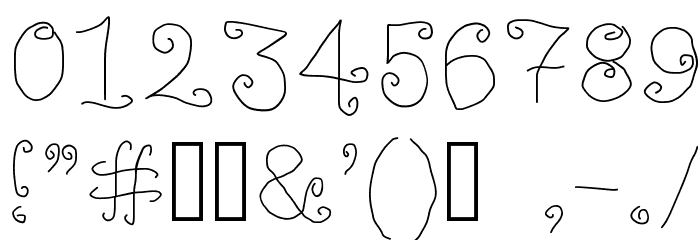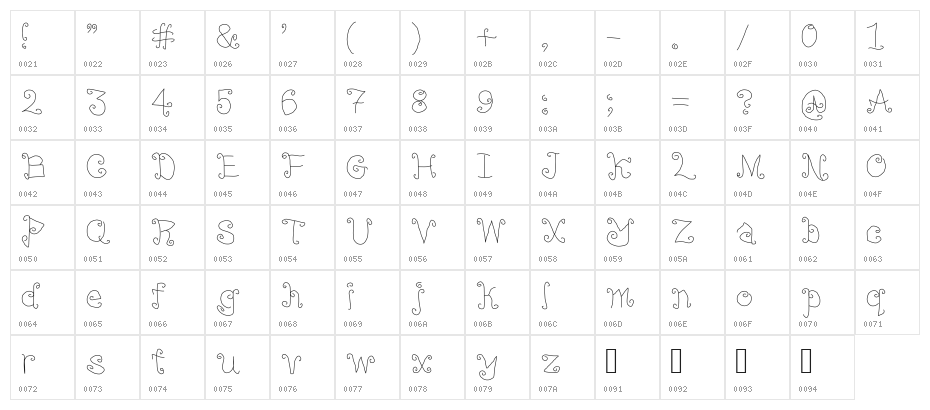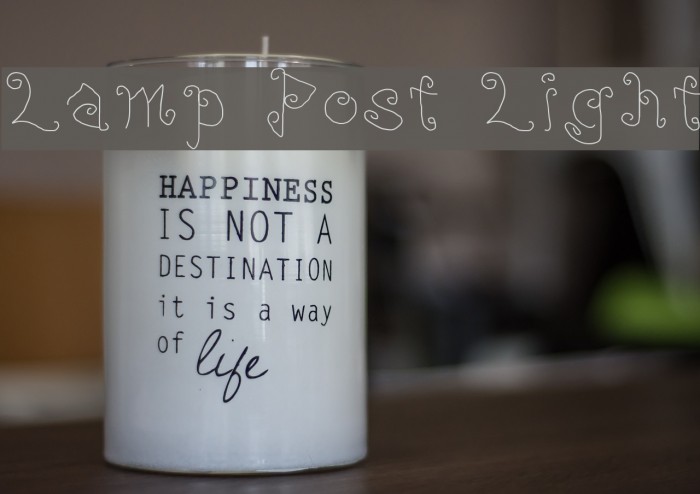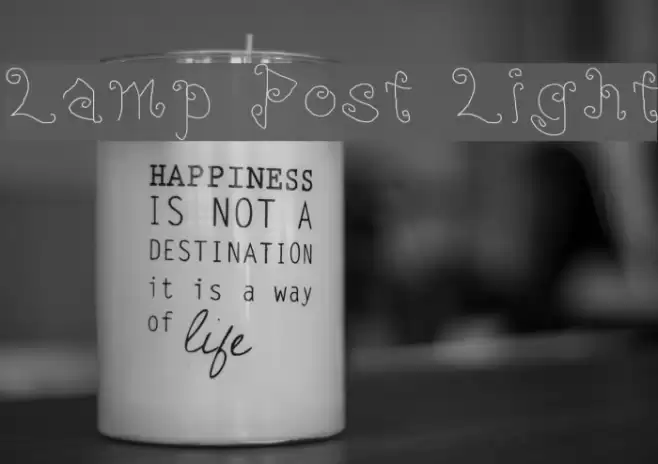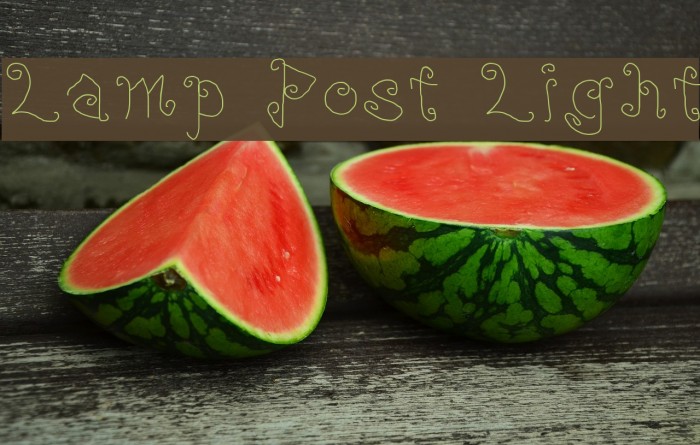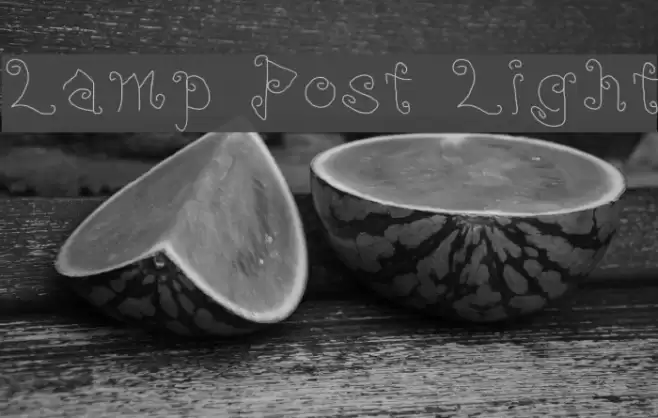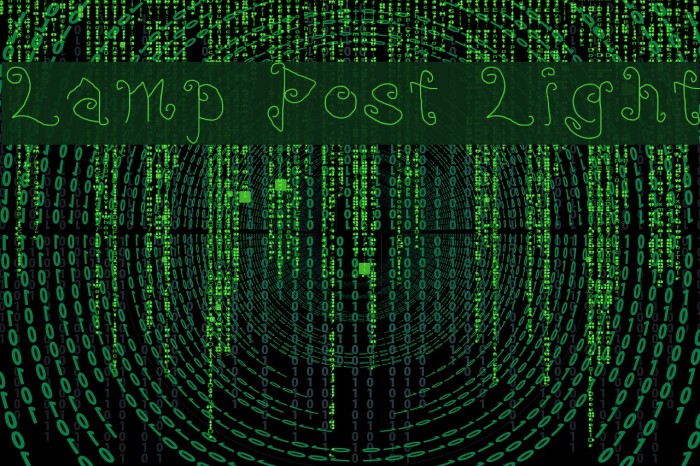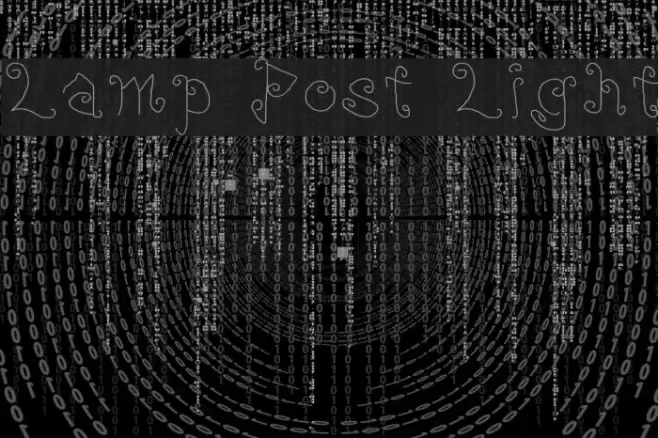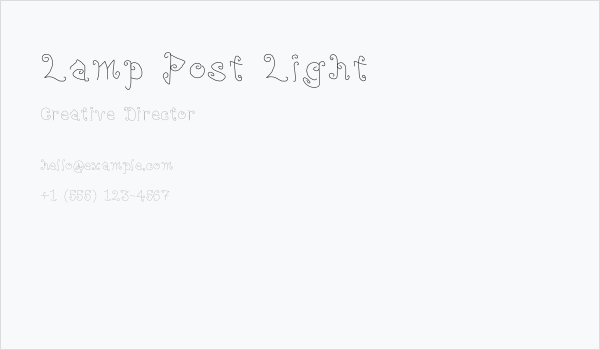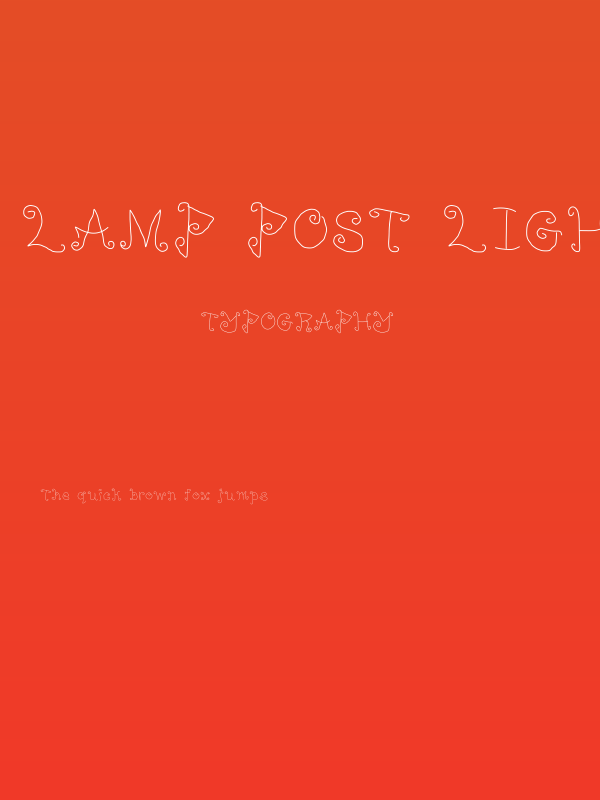
Lamp Post Light Font
Lamp Post Light Description
This whimsical and decorative font features playful curls and loops on each character, giving it a unique and artistic flair. The letters are characterized by their thin strokes and intricate details, making them stand out with a hand-drawn appearance. The uppercase and lowercase letters maintain a consistent style, with the uppercase being slightly more elaborate. Numbers and special characters follow the same design principles, ensuring a cohesive look across all elements. This font is perfect for projects that require a touch of creativity and individuality.
| Proposed Projects | Ideal for greeting cards, children's books, creative posters, and artistic branding. |